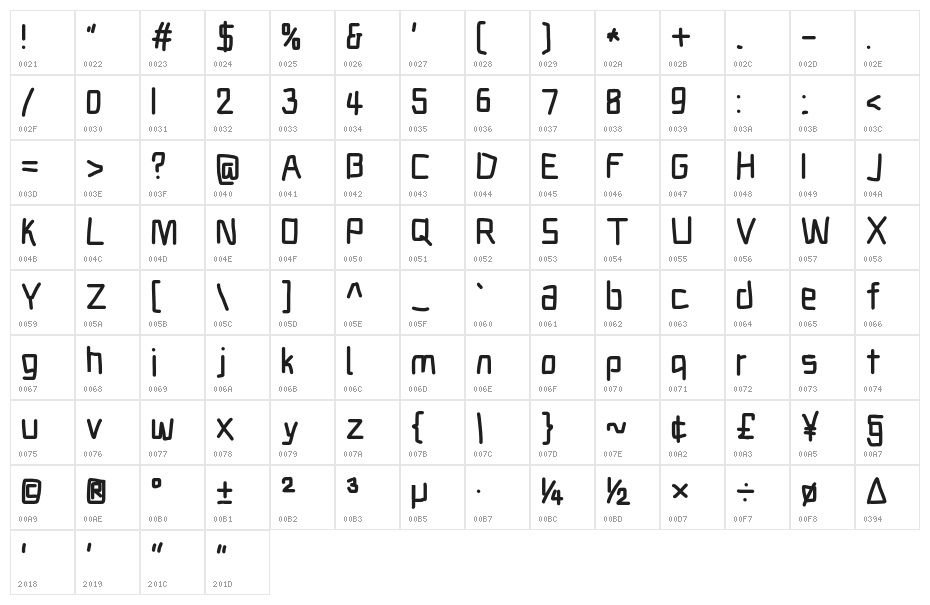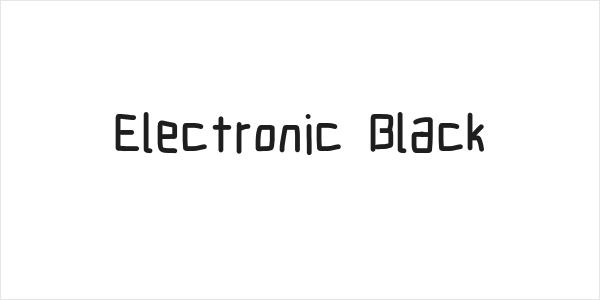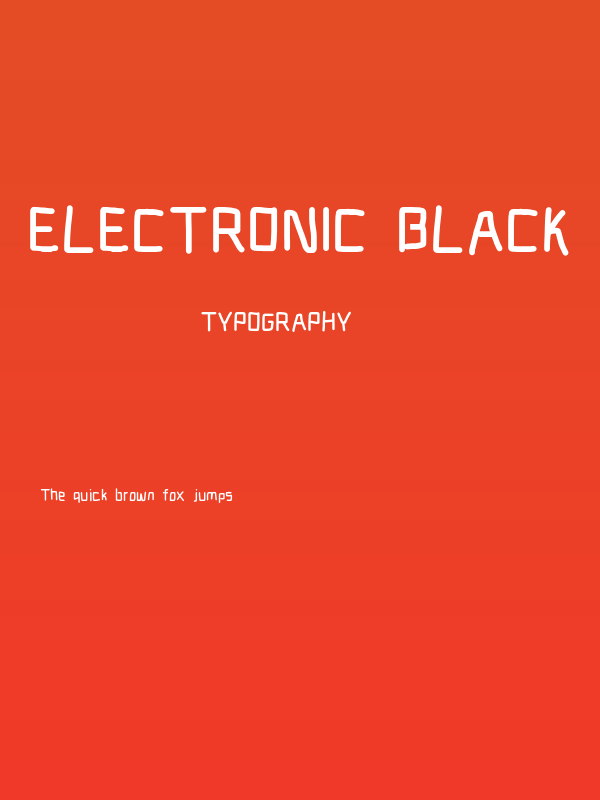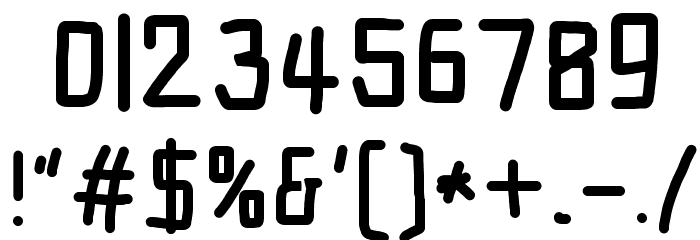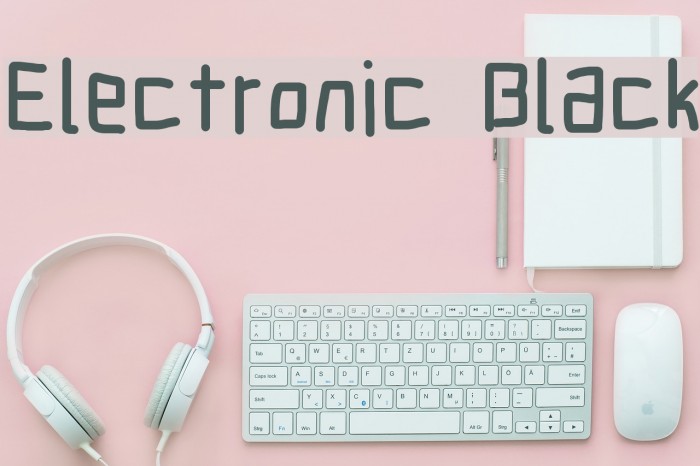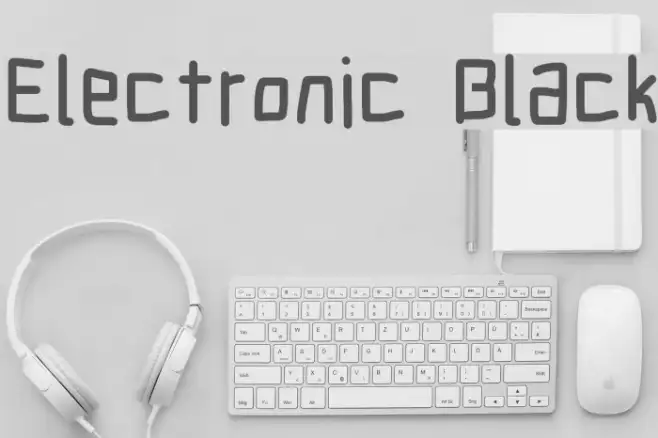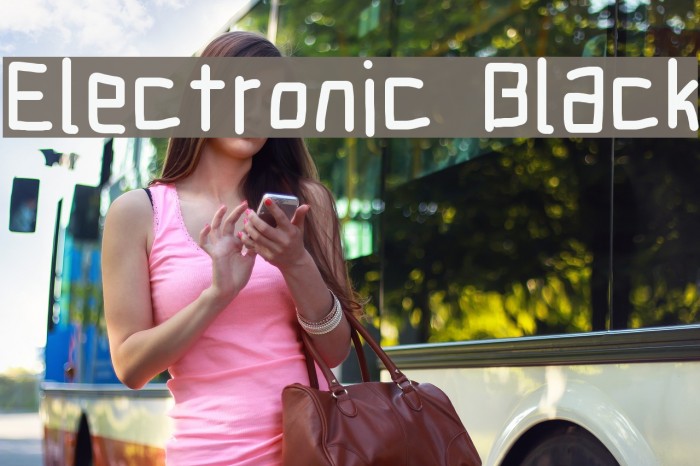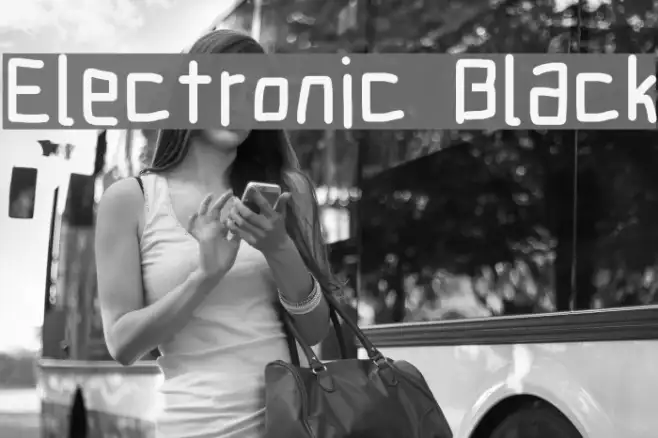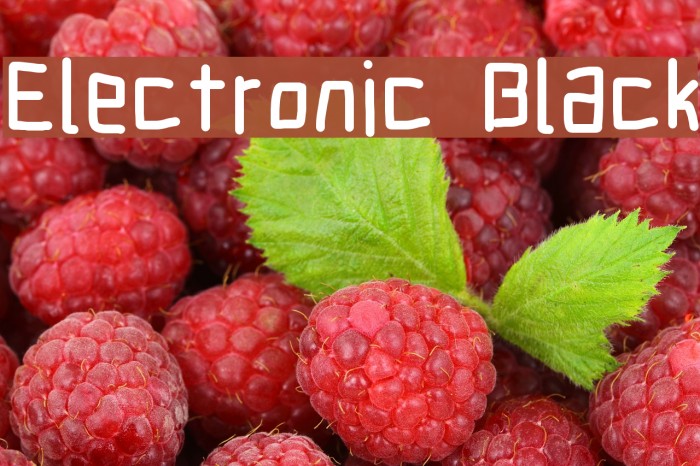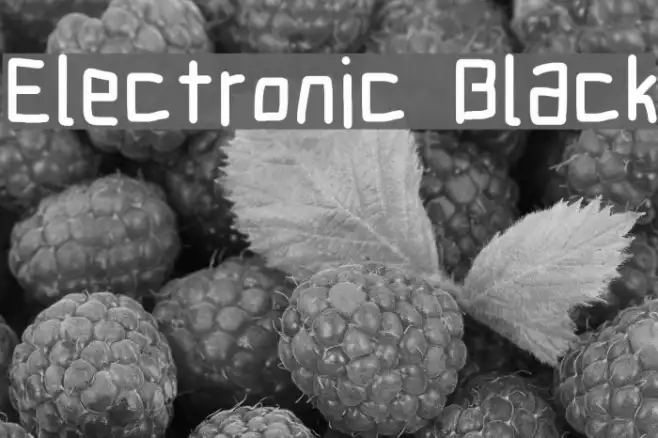
Electronic Black Font
Electronic Black Description
This font features a bold, rounded style with a modern and slightly playful appearance. The characters are uniformly thick, giving it a consistent and sturdy look. The uppercase and lowercase letters maintain a cohesive design, with rounded edges and a slightly condensed form. The numbers and special characters follow the same design principles, ensuring a harmonious overall appearance. This font is highly legible and stands out due to its boldness and unique character shapes.
| Proposed Projects | Ideal for digital interfaces, children's books, playful branding, and modern advertising. |